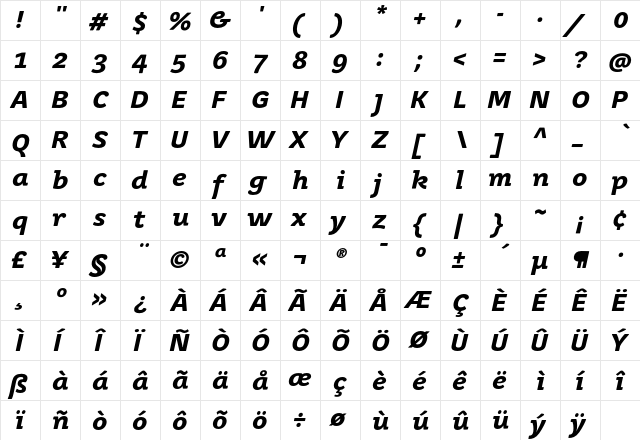
Juvenis Text Bold Italic
Design Context for Juvenis Text Typeface
Juvenis Text is a composed and adaptable typeface that performs quietly and consistently across a wide range of design contexts. The dynamic lean of this cut emphasises speed and emphasis in any layout. The heavy weight commands attention and anchors typographic hierarchies.
Pro Tip: Use Juvenis Text for emphasis, pull quotes, and subheadings where its slanted energy can add rhythm to the layout.